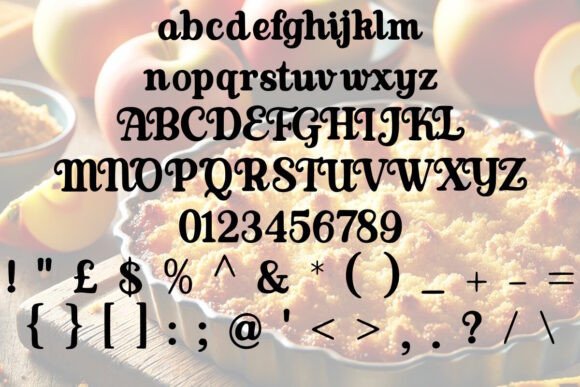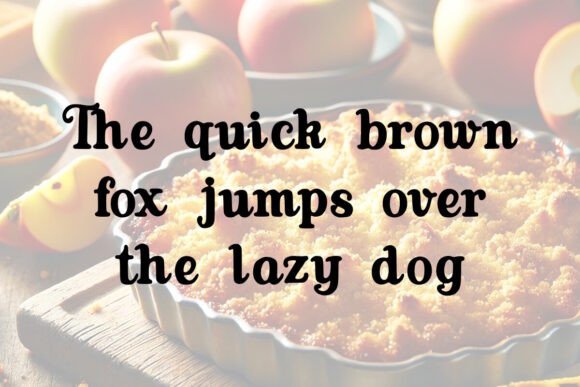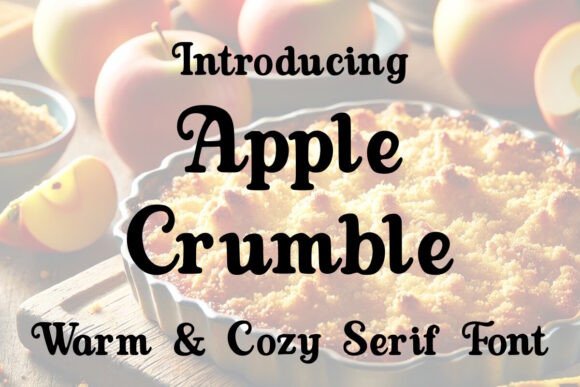
Introducing Apple Crumble Font: The Cozy Serif Typeface for Your Design Needs
Are you looking for a font that exudes warmth, comfort, and a touch of vintage charm? Look no further than Apple Crumble, a delightful serif font that is sure to bring a smile to your face. With its soft curves and nostalgic feel, Apple Crumble is the perfect typeface for designers and crafters seeking to add a homely touch to their projects.
The Inspiration Behind Apple Crumble
As its name suggests, Apple Crumble is inspired by the classic dessert that evokes feelings of warmth and comfort. This font is designed to capture the essence of a cozy afternoon spent baking in the kitchen, surrounded by the comforting aromas of sweet apples and crumbly pastry. The result is a typeface that is as inviting as it is charming.
Design Features of Apple Crumble
Apple Crumble boasts a range of design features that make it an ideal choice for a variety of design projects. Some of its key characteristics include:
• Soft curves: Apple Crumble’s rounded edges and smooth curves give it a gentle, approachable feel that is perfect for creating a warm and welcoming atmosphere.
• Serif details: The font’s serif details add a touch of sophistication and elegance, making it suitable for use in a range of design applications, from logos and signage to book covers and packaging.
• Vintage charm: Apple Crumble’s nostalgic feel is reminiscent of classic typography from the early 20th century, making it a great choice for designers seeking to create a retro or vintage look.
Use Cases for Apple Crumble
Apple Crumble is a versatile font that can be used in a wide range of design projects, including:
• Bakery signs: The font’s warm and inviting feel makes it perfect for use in bakery signs, menus, and advertising materials.
• Retro-style logos: Apple Crumble’s vintage charm makes it a great choice for designers seeking to create a retro-style logo that stands out from the crowd.
• Book covers: The font’s soft curves and nostalgic feel make it an excellent choice for use in book covers, particularly for titles in the cooking, baking, or lifestyle genres.
• Crafting and DIY projects: Apple Crumble is also a great choice for crafters and DIY enthusiasts seeking to add a personal touch to their projects, from handmade cards and gift tags to scrapbooking and journaling.
Why Choose Apple Crumble?
So why choose Apple Crumble over other fonts? Here are just a few reasons why this charming serif font is a great addition to any designer’s toolkit:
• Unique character: Apple Crumble has a unique character that sets it apart from other fonts, making it perfect for designers seeking to create a distinctive look.
• Easy to read: Despite its decorative nature, Apple Crumble is surprisingly easy to read, making it suitable for use in a range of design applications.
• Customizable: The font’s versatility means it can be customized to suit a range of design needs, from adjusting the font size and color to experimenting with different textures and patterns.
Apple Crumble is a charming serif font that is sure to bring warmth and character to any design project. With its soft curves, nostalgic feel, and vintage charm, this typeface is perfect for designers and crafters seeking to add a touch of coziness to their work. Whether you’re creating a bakery sign, a retro-style logo, or a feel-good book cover, Apple Crumble is the perfect choice for anyone seeking to add a little bit of comfort and charm to their design.